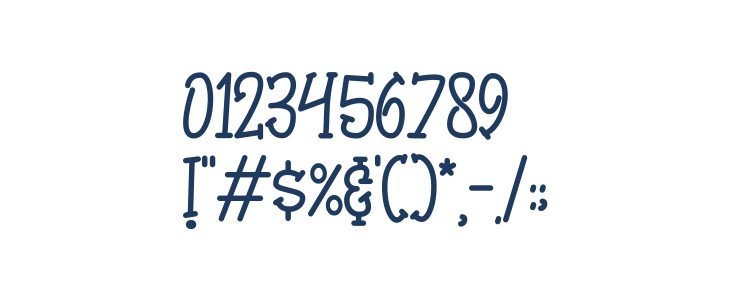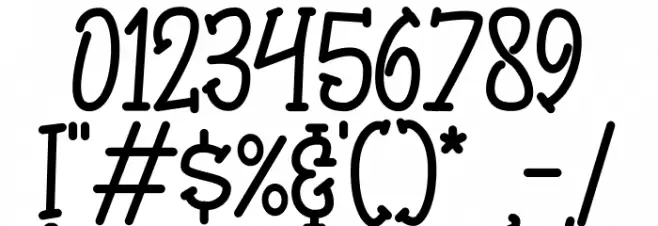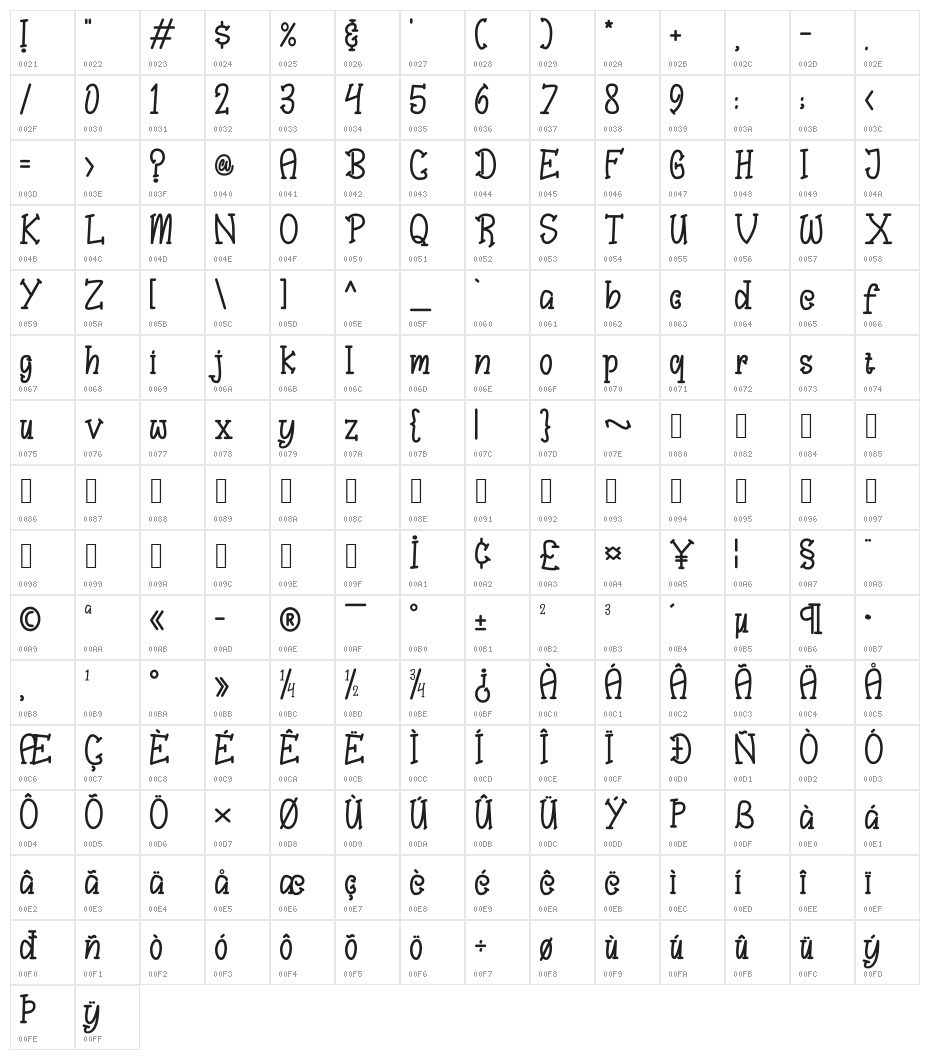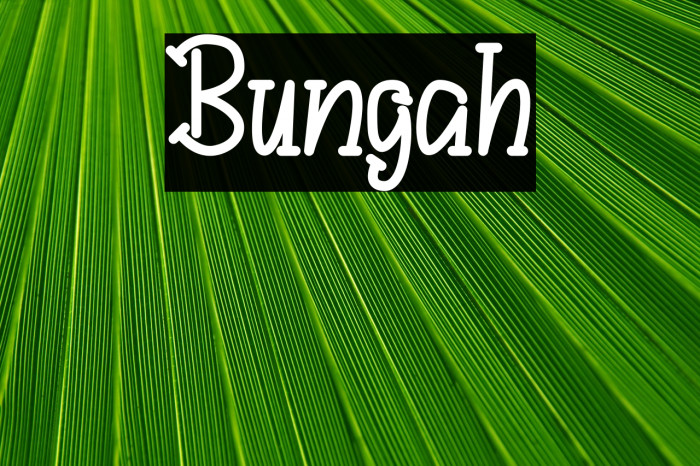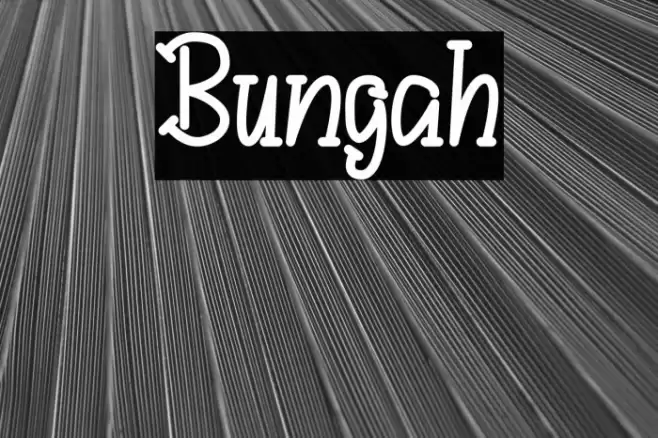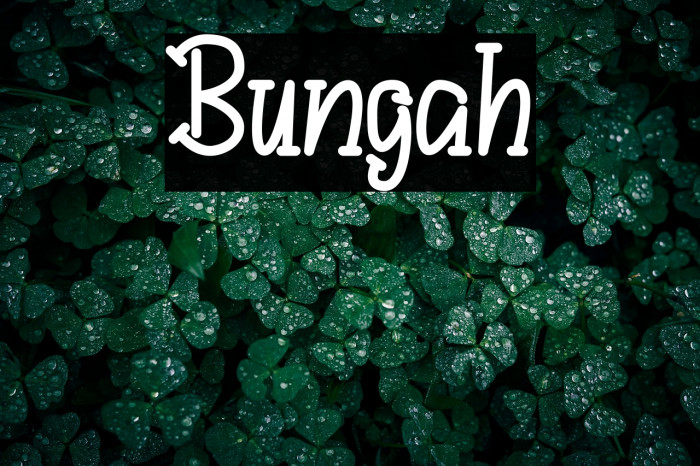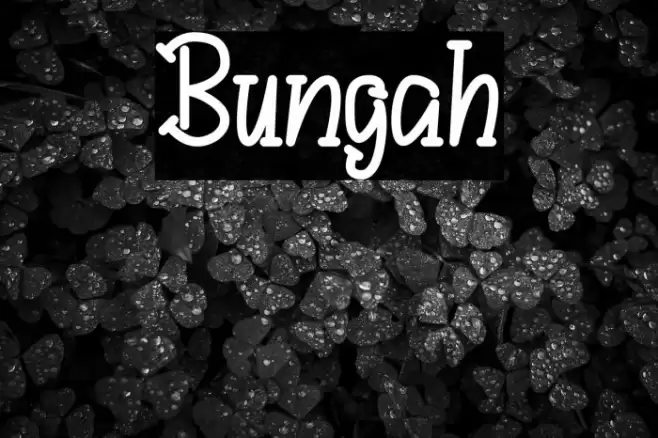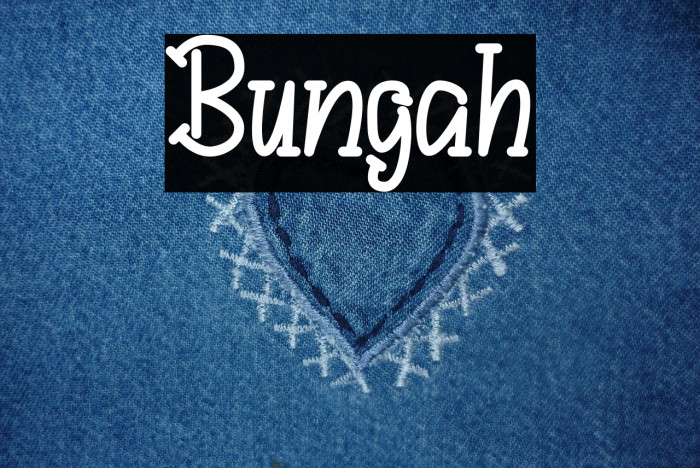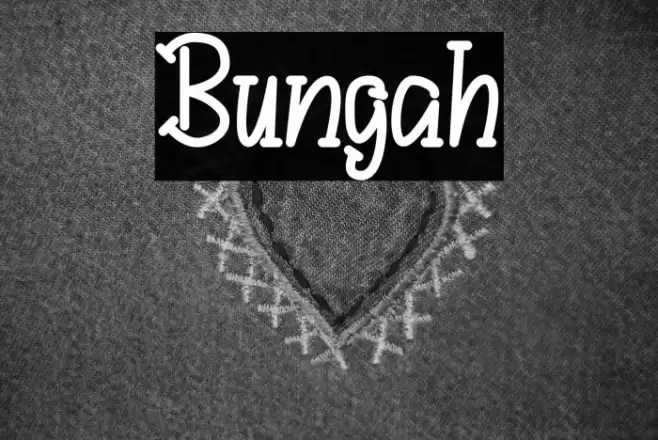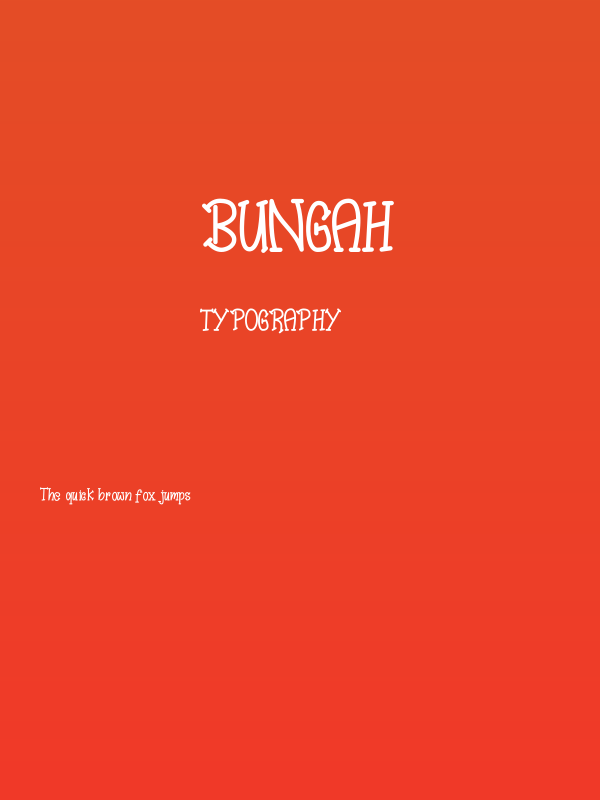
Bungah Font
Bungah Description
This playful and whimsical font features a handwritten style with a unique flair. Each character is crafted with a sense of fun and creativity, showcasing a blend of bold strokes and rounded edges. The uppercase letters stand tall with a slight slant, while the lowercase letters maintain a consistent flow, adding to the font's charm. Numbers and special characters are designed to match the playful aesthetic, making them perfect for adding a touch of personality to any project. The font's overall appearance is both approachable and distinctive, making it suitable for a variety of creative applications.
Overall StylePlayful
Proposed ProjectsIdeal for children's books, playful branding, greeting cards, and creative posters.